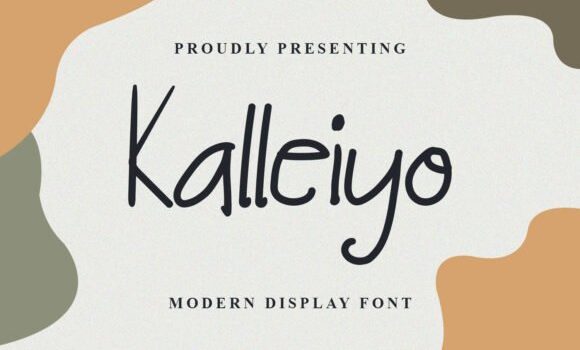
kalleiyo
Kalleiyo Font – Free Download Introduction to Kalleiyo Font Kalleiyo is a sweet and friendly handwritten font. 📸 Preview Gallery 6 images 📌 Product Name Kalleiyo Font 👤 Author densudesign 📂 Category Explore ⬇️ Download Kalleiyo Font FREE Free Download